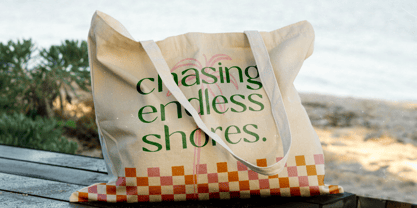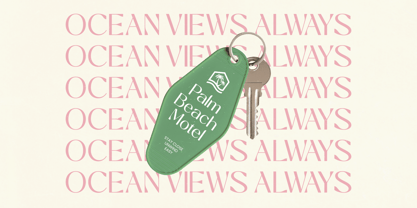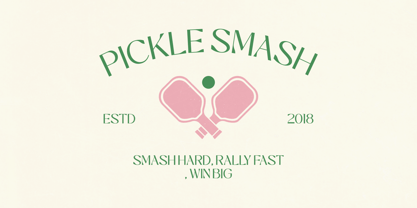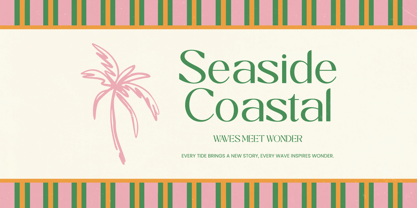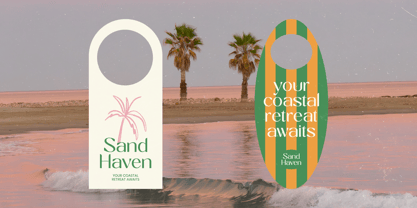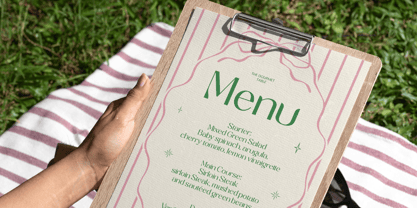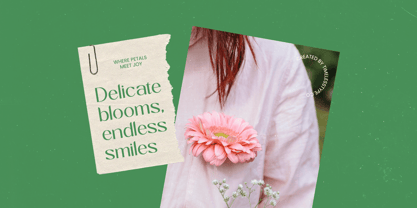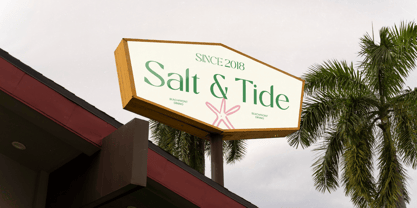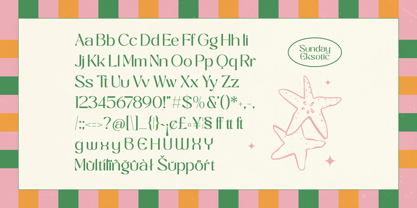
Sunday Eksotic
by Timelesstype Studio
The Sunday Eksotic Font Family was designed by Heru Utama Putra and published by Timelesstype Studio. Sunday Eksotic contains 2 styles and family package options. More about this family
Elevate your design projects with a touch of sophisticated flair using Sunday Eksotic – Sans Serif Display. This typeface masterfully blends high-contrast strokes with a modern aesthetic, creating a visual elegance that commands immediate attention. Its unique balance of sharp lines and graceful curves makes it a standout choice for designers looking to infuse a sense of organic luxury and artistic distinction into their creative work.